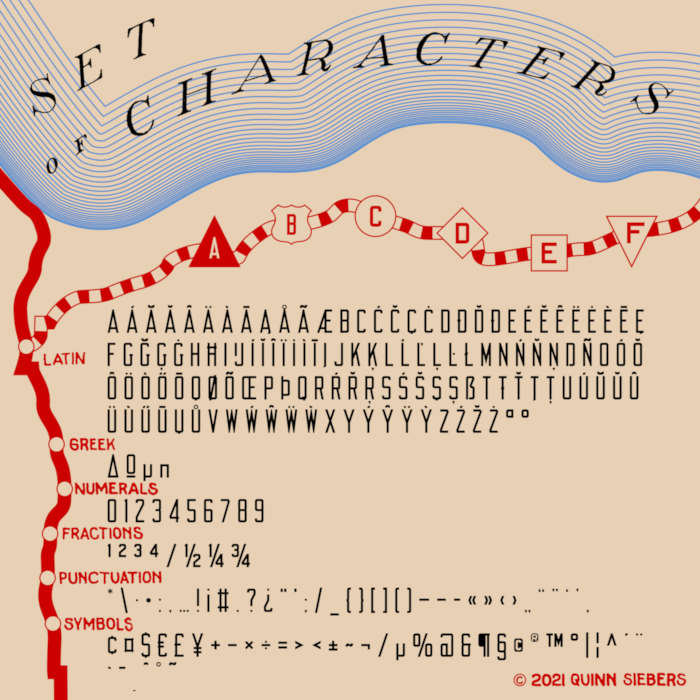
A digitalization and slight extension of the square block sign painting typeface used in the 1935 Manual on Uniform Traffic Control Devices and most road signs in the United States before Highway Gothic became the standard in 1948.